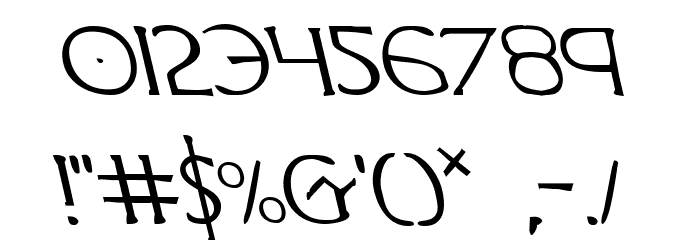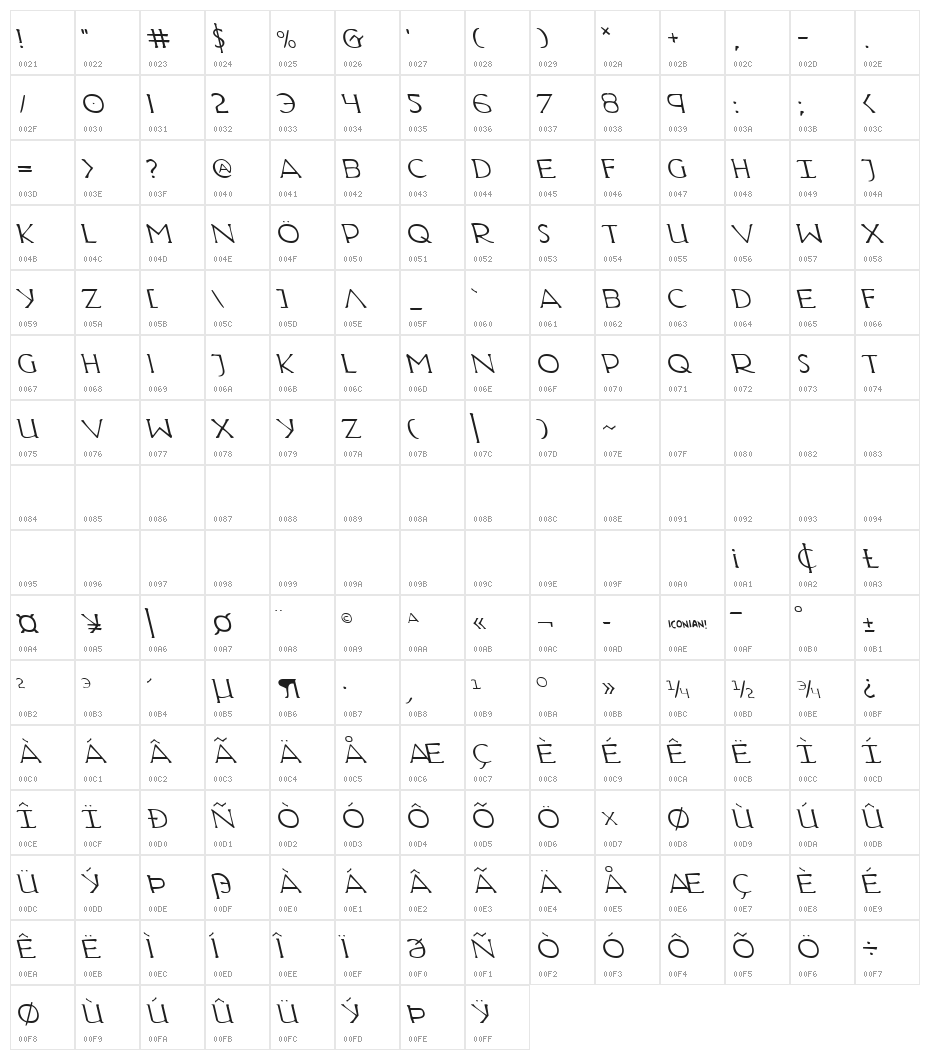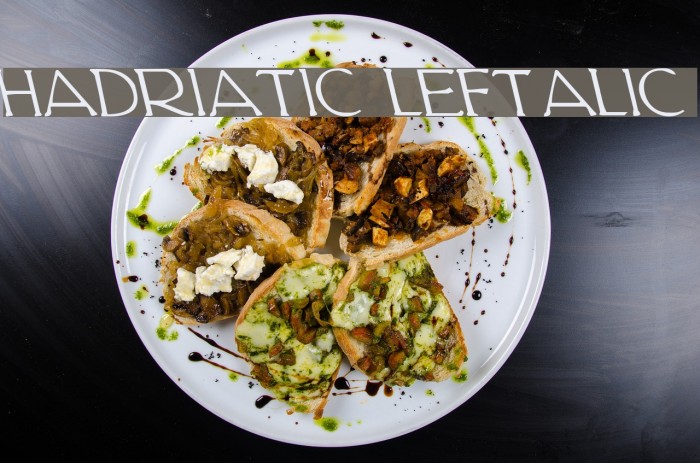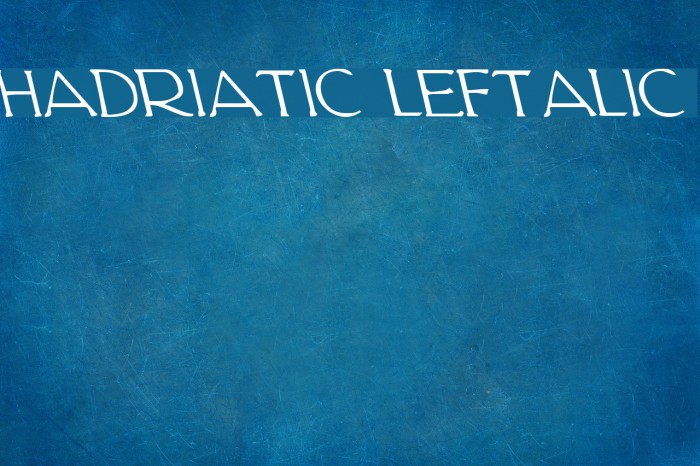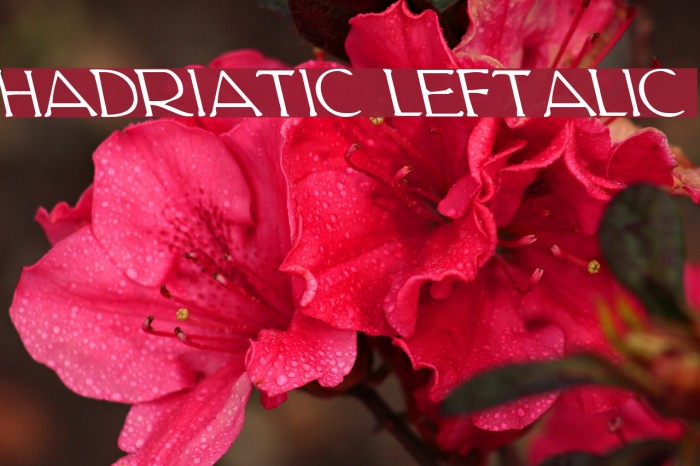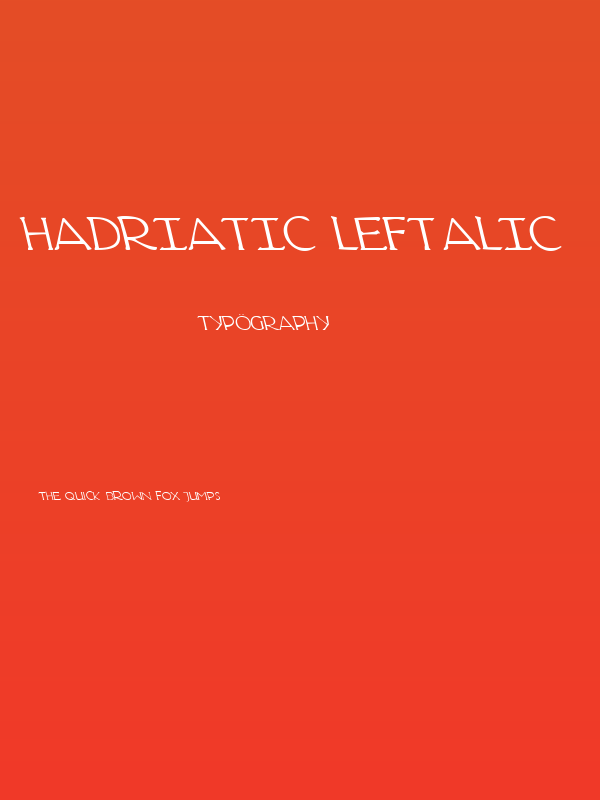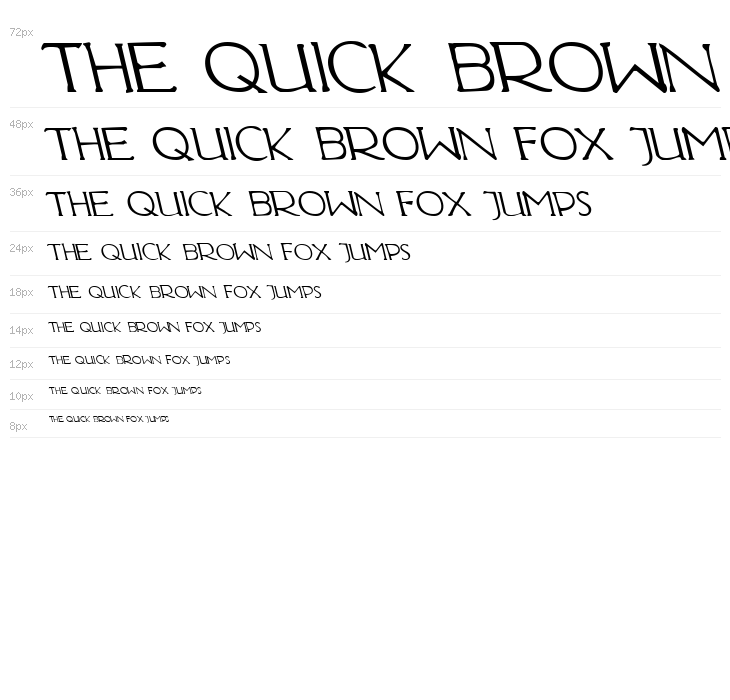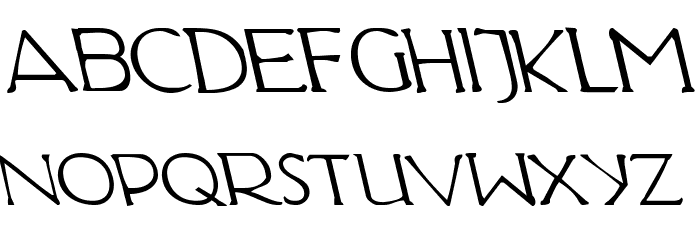
Hadriatic Leftalic Font
Hadriatic Leftalic Description
This font features a unique and artistic style with a left-leaning italic slant, giving it a dynamic and forward-moving appearance. The characters are crafted with a blend of sharp and rounded edges, creating a distinctive look that stands out. The uppercase and lowercase letters maintain a consistent style, with the uppercase letters exhibiting a slightly more pronounced slant. The numbers are designed with similar characteristics, ensuring uniformity across the font. Special characters are included, each designed to complement the overall aesthetic. This font's artistic flair makes it suitable for creative and expressive projects.